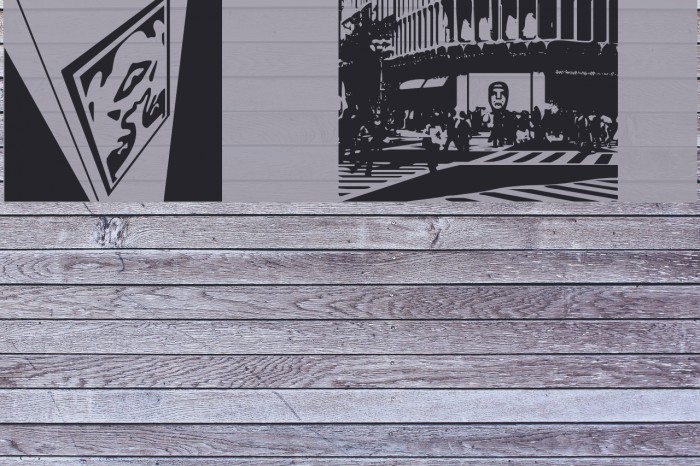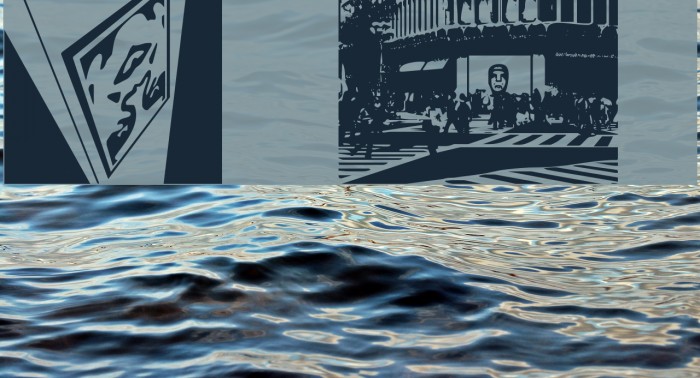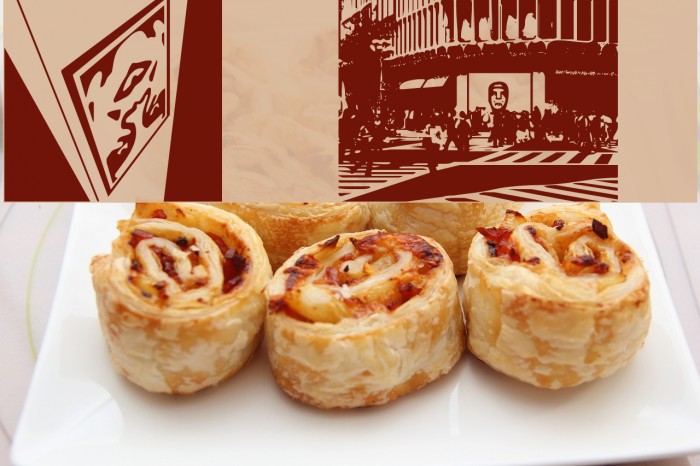
ObeyTown Font
ObeyTown Description
This font is a highly decorative and artistic display typeface, featuring intricate designs within each letter. Each character is filled with unique graphic elements, including urban and street art motifs, which give it a bold and edgy appearance. The letters are uppercase and have a consistent height, but the internal designs vary, adding a dynamic and visually engaging quality. This font is not suitable for body text due to its complexity but stands out as a striking choice for creative projects.
A decorative display font with intricate urban art designs within each letter from Uncategorized fonts.
- Proposed Projects: Ideal for posters, album covers, street art projects, and any design requiring a bold, artistic statement.
- Overall Style: Modern, Urban, Artistic